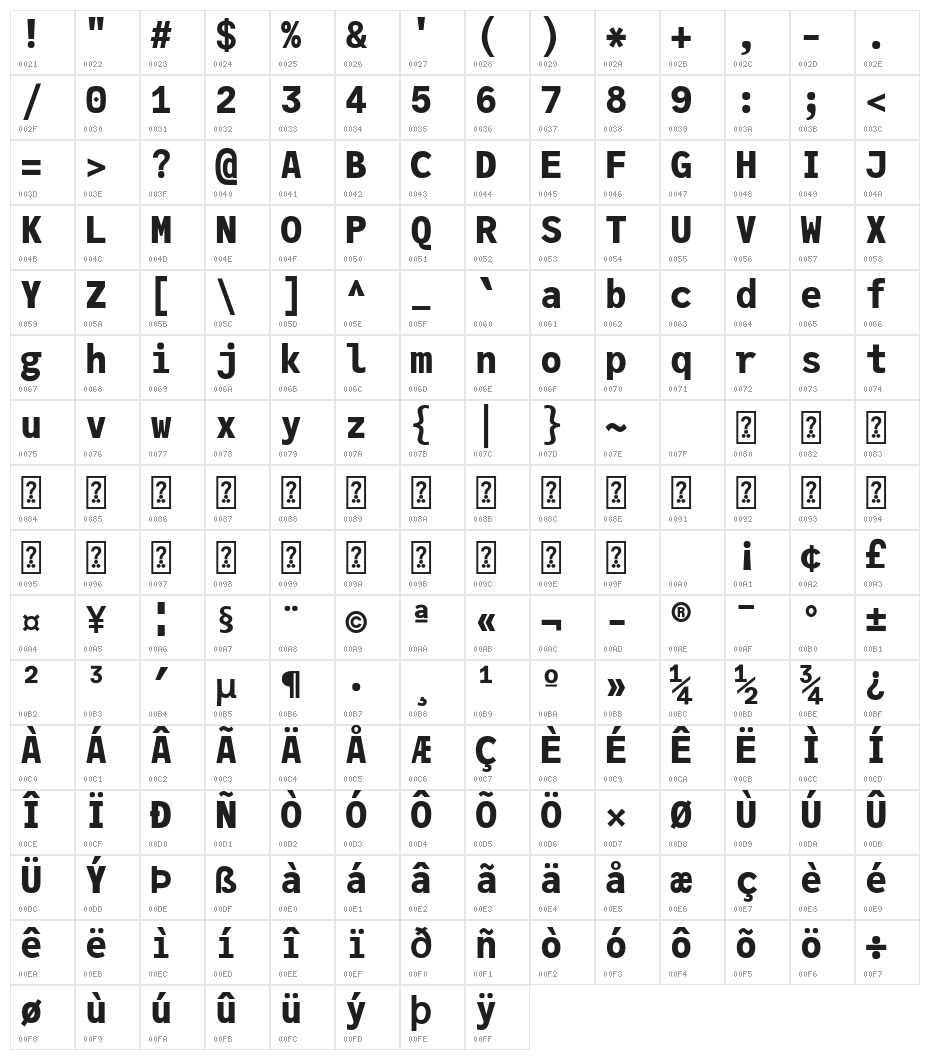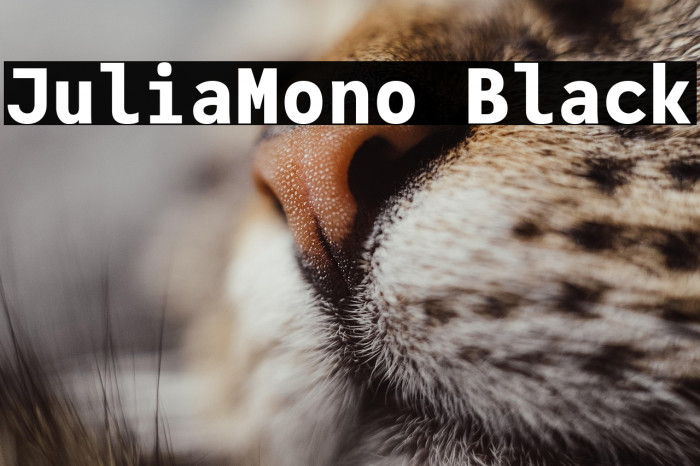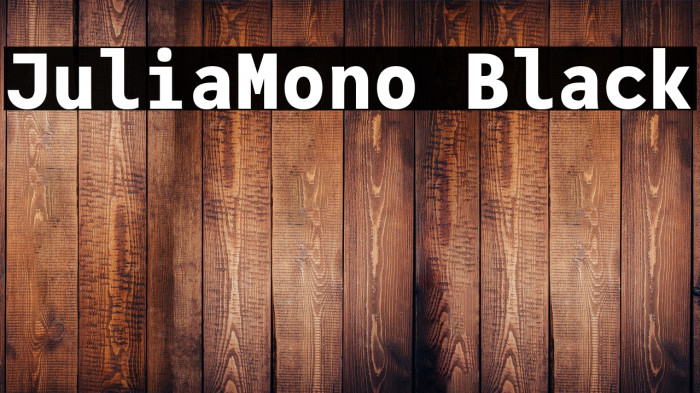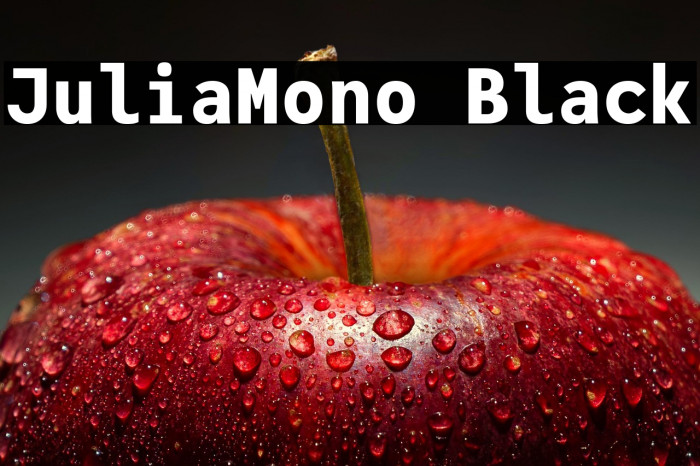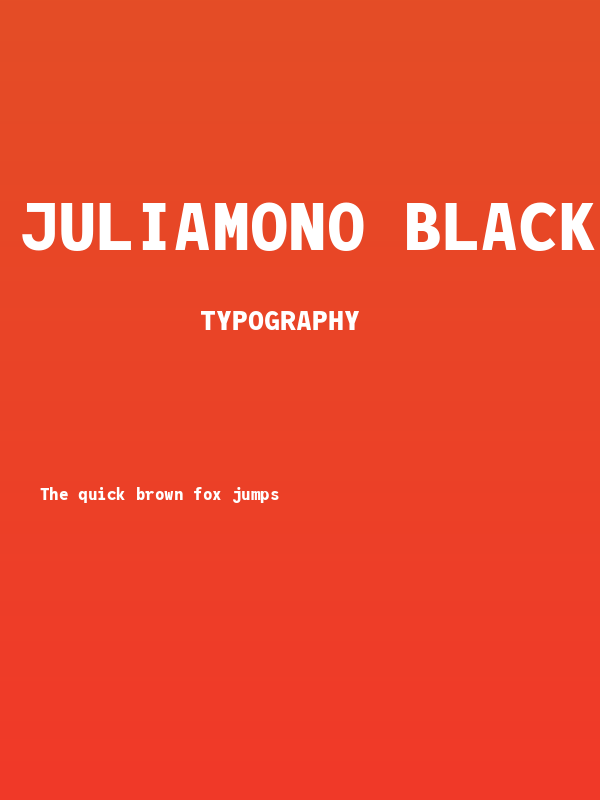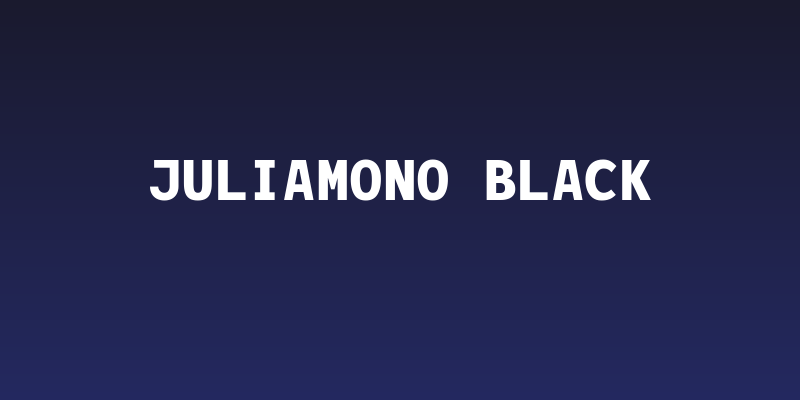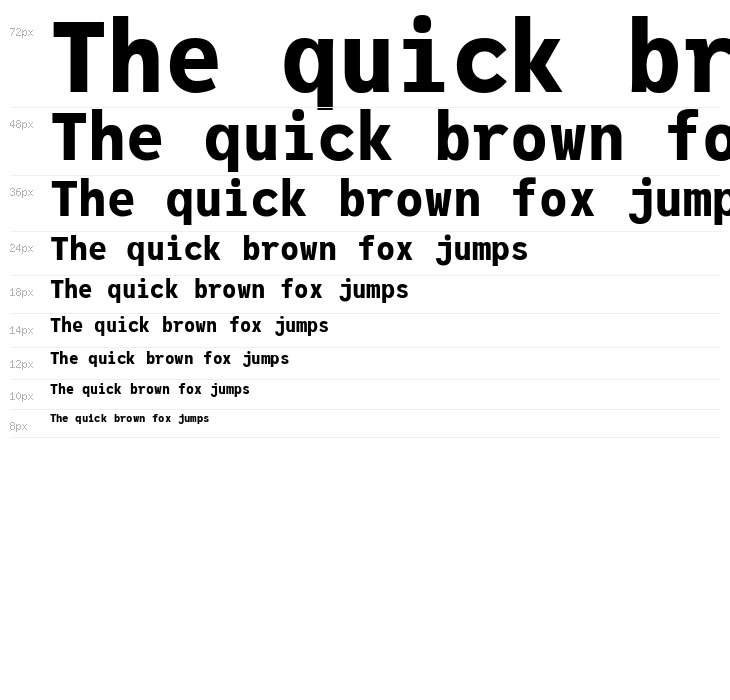
JuliaMono Black Font
JuliaMono Black Description
This font is a bold, monospaced typeface that features a strong and robust appearance. Each character is designed with uniform width, providing a consistent and orderly look. The uppercase letters are tall and commanding, while the lowercase letters maintain a balanced and readable form. The numerals are clear and distinct, making them ideal for coding or tabular data. Special characters are well-defined, ensuring versatility across various applications. The overall design is modern and functional, suitable for both digital and print media.
| Use Case | Coding, Technical documentation, Data tables |
| Proposed Projects | Ideal for coding environments, technical documentation, data tables, and any project requiring clear and consistent text alignment. |